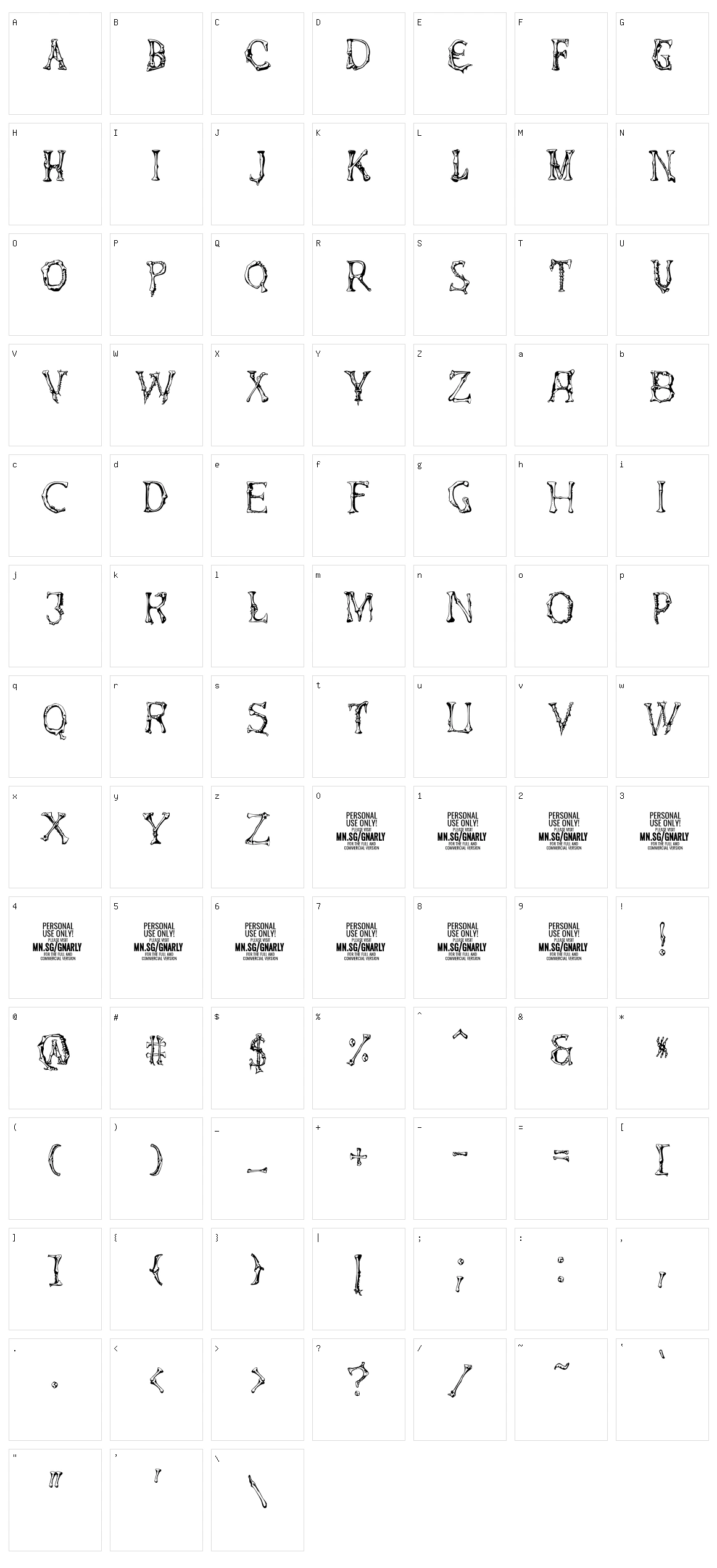
Gnarly Bone transports you to a realm where the morbid and the artistic collide. Conjuring the eerie silence of a moonlit graveyard, this typeface merges skeletal fragments and bone parts to create an alphabet that is as frightening as it is fascinating. Ideal for posters, invitations or banners for horror-themed events, it carves out a niche in the graphic world with a sinister yet captivating charm, echoing the whispers of the grave in each glyph.
Use the currency symbol ¤ to make a skull.
Example: haLl¤weEn
Use multiple to make different skulls.
Example: ¤¤¤¤¤Darkness¤¤¤¤
The font is built with advanced OpenType functionality and has a guaranteed top-notch quality, containing stylistic and contextual alternates, ligatures, and more features; all to give you full control and customizability. It has extensive lingual support, covering all Latin-based languages, from Northern Europe to South Africa, from America to South-East Asia. It contains all characters and symbols you'll ever need, including all punctuation and numbers.
Mans Greback, the designer behind the Gnarly collection, holds a vast portfolio of innovative typography. He showcases a fusion of tradition with contemporary flair, and the Gnarly series stands as yet another testament to his craftsmanship and creative vision.